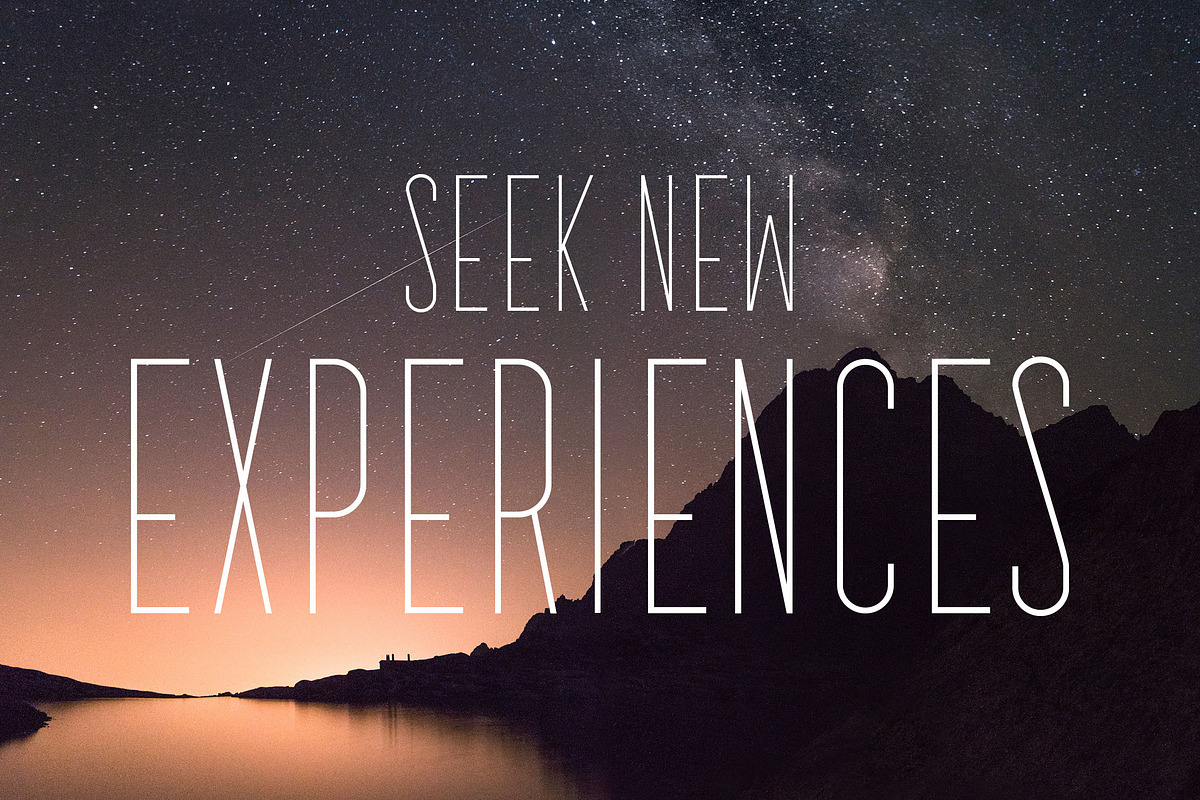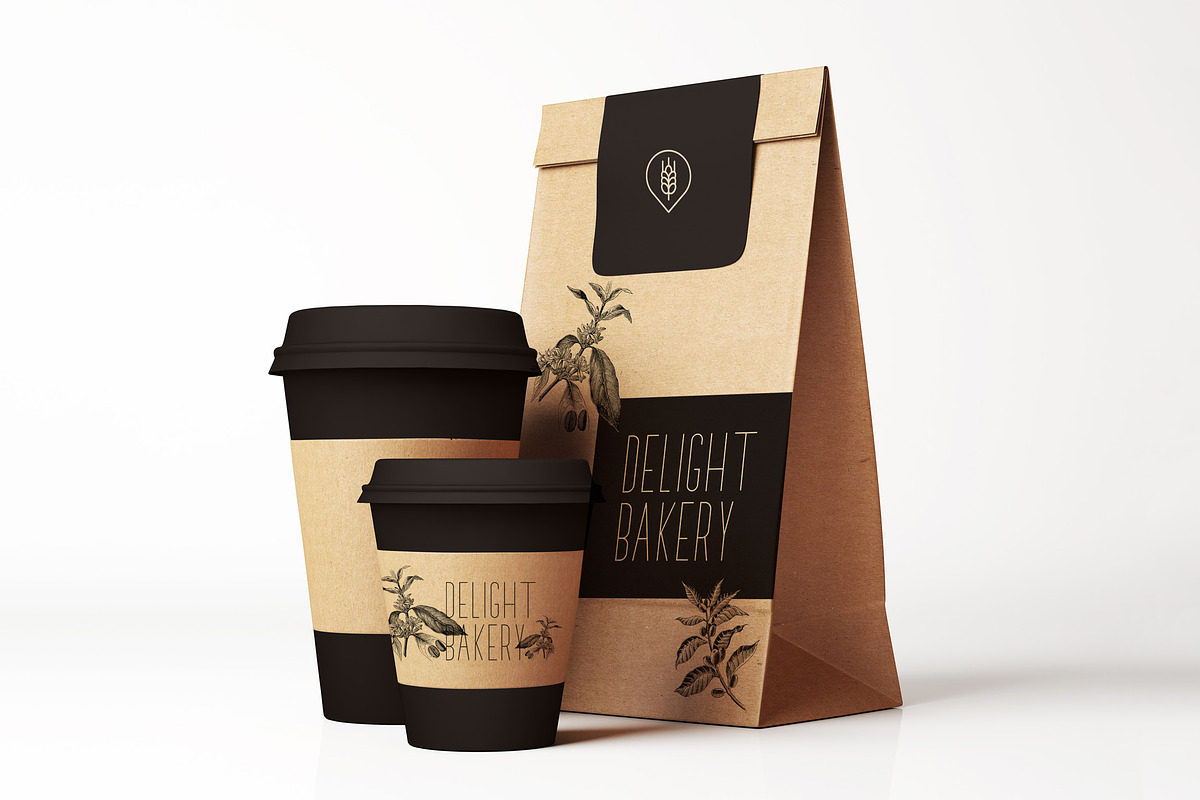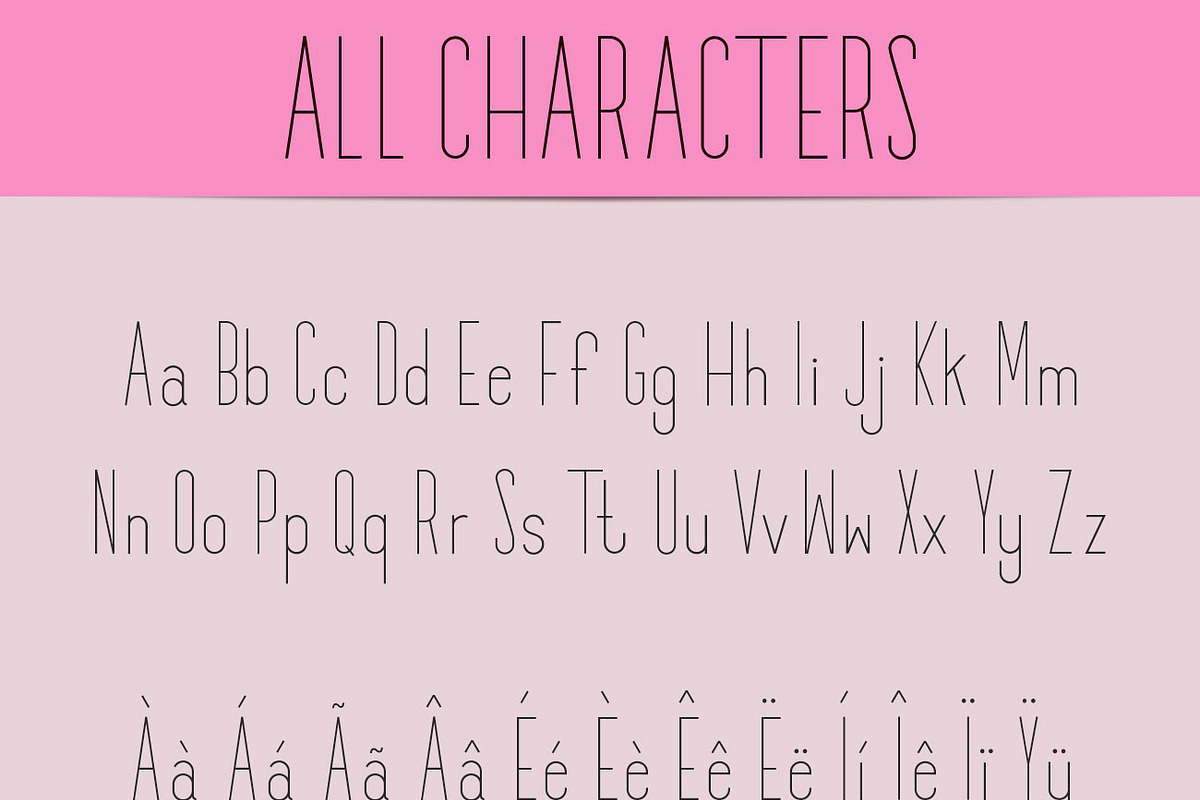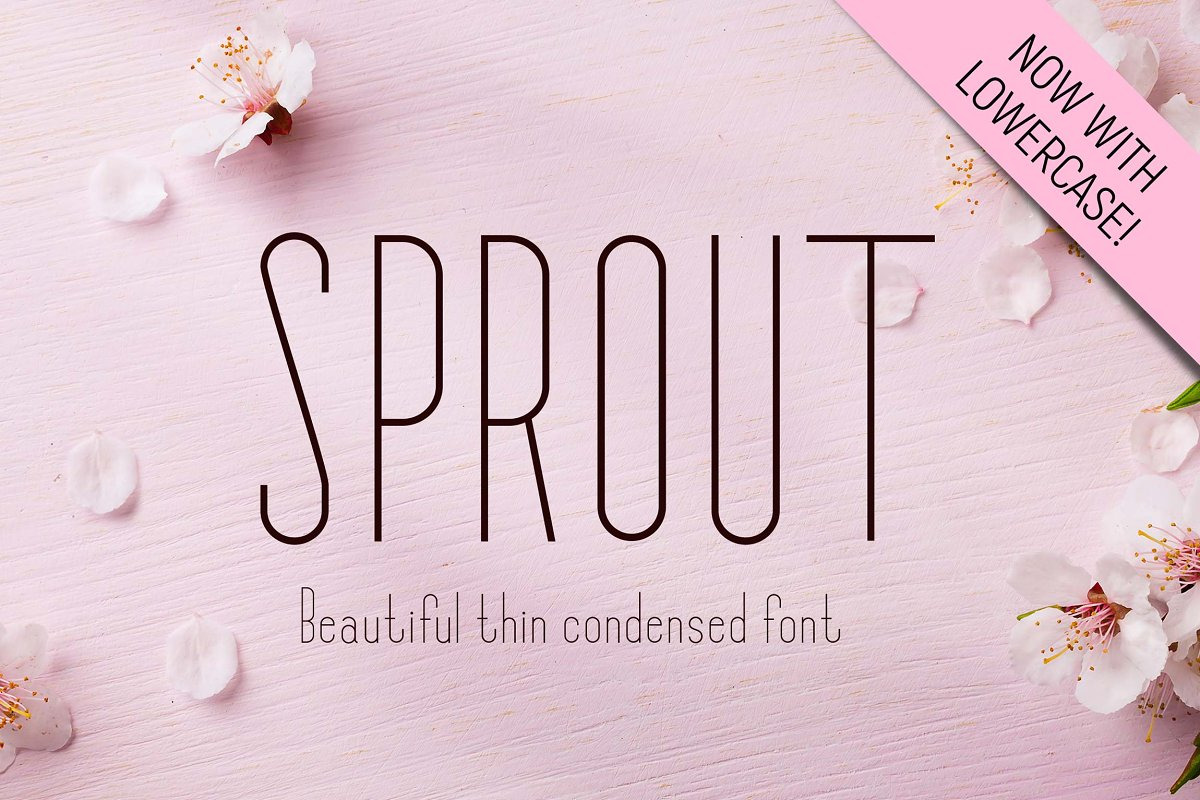
Sprout - Sans Serif Font
A delicate and condensed font designed specifically for all your wedding-related needs. Its thin strokes and compact letterforms bring a touch of elegance and sophistication to every aspect of your special day.
Sprout is the perfect choice for wedding invitations, creating a beautiful and refined first impression for your guests. Its delicate look adds a touch of romance and sets the tone for an unforgettable event.
Not limited to invitations, Sprout also shines in wedding albums, gracefully complementing the captured memories of your cherished moments. Its condensed form allows for seamless integration, maximizing the space and maintaining a clean and polished appearance.
Take your wedding website to the next level with Sprout, as its thin and condensed nature allows for clear and stylish typography. Every detail will be presented with finesse and sophistication, providing a delightful browsing experience for your guests.
With Sprout, your wedding-related designs will exude elegance and charm. Its delicate aesthetic brings a sense of refinement to everything it touches. Embrace the beauty of Sprout and let it elevate your wedding stationery, albums, websites, and beyond.